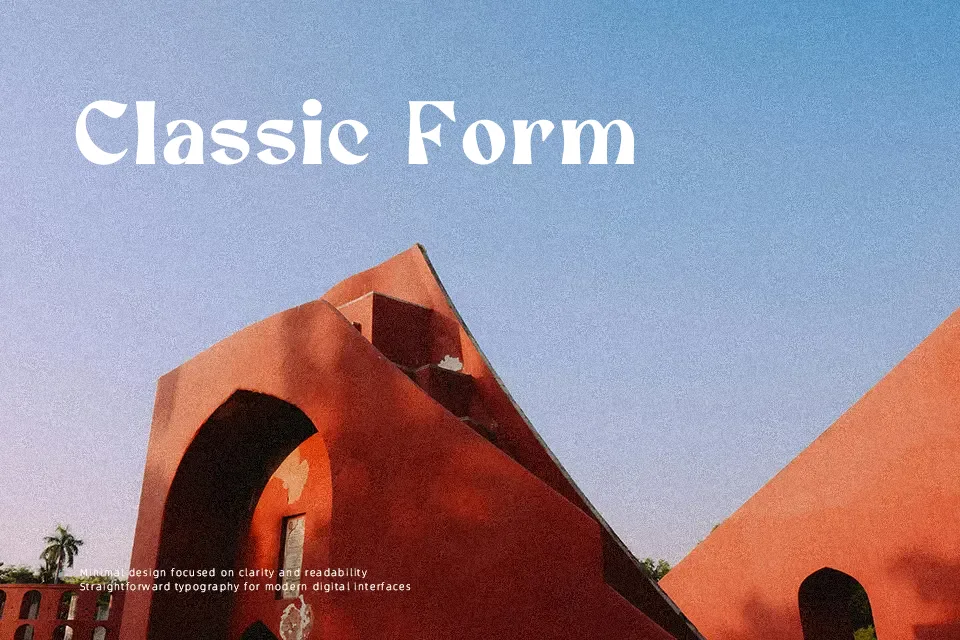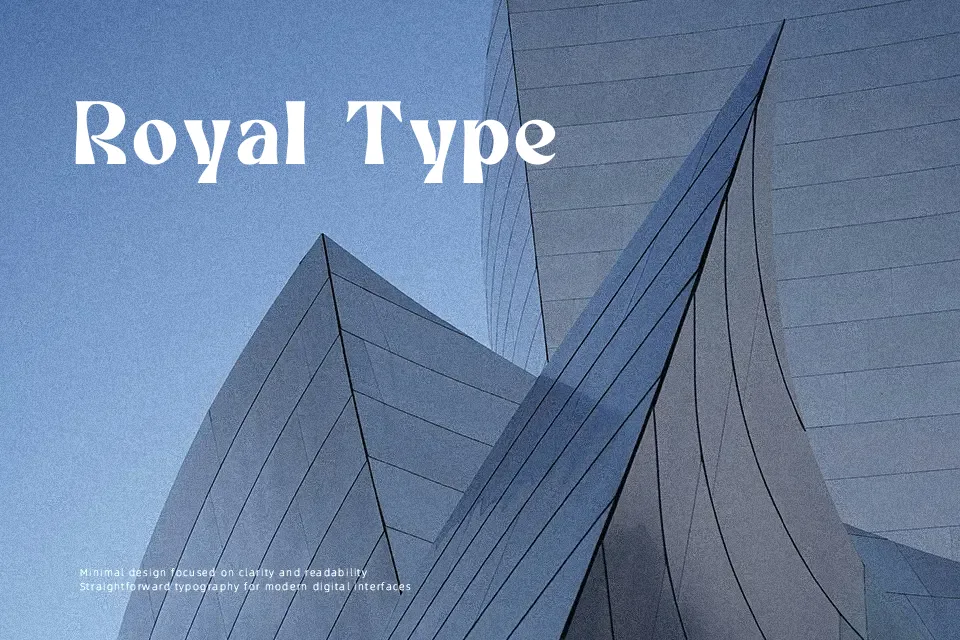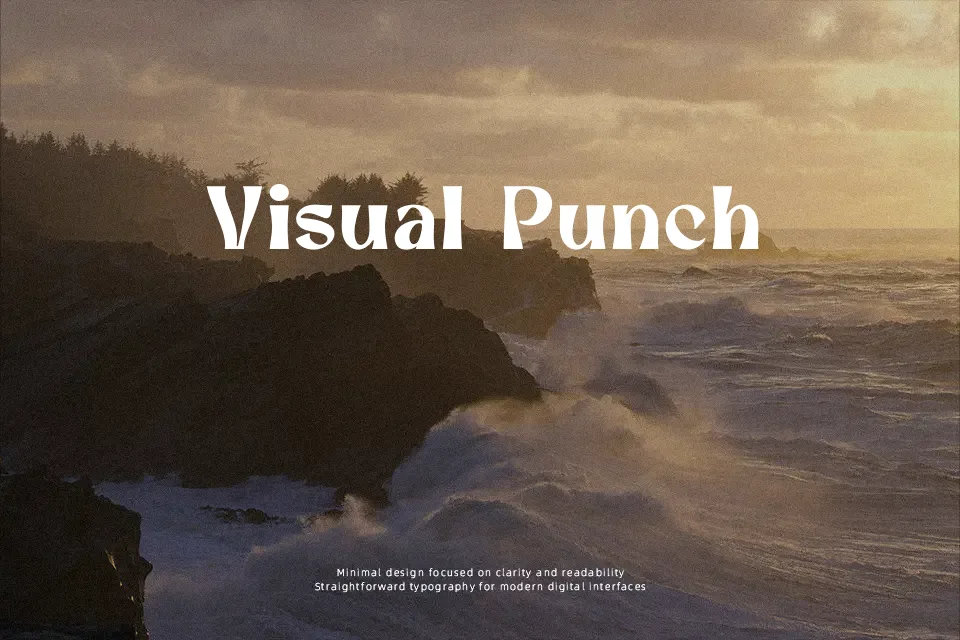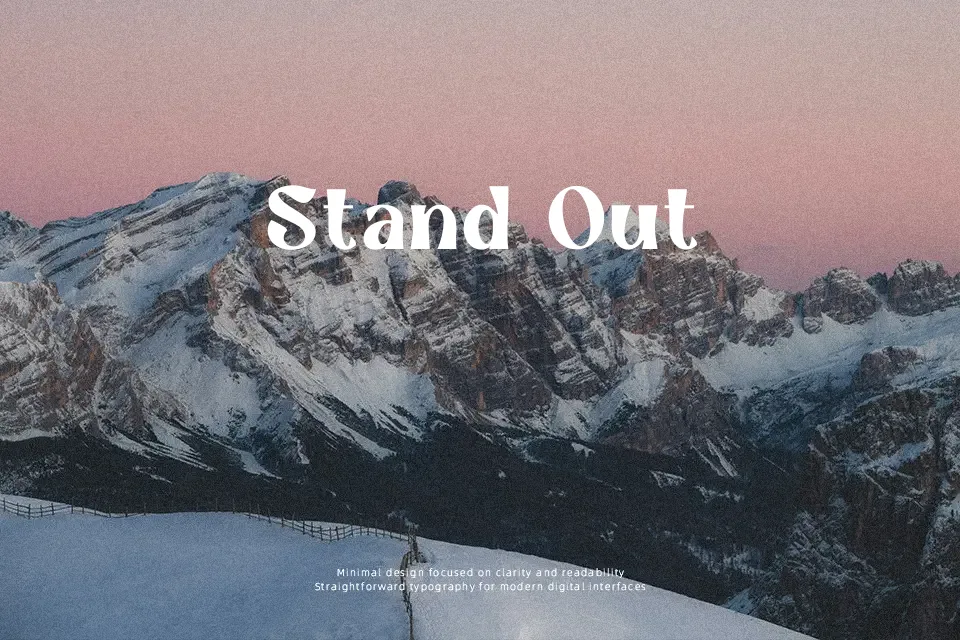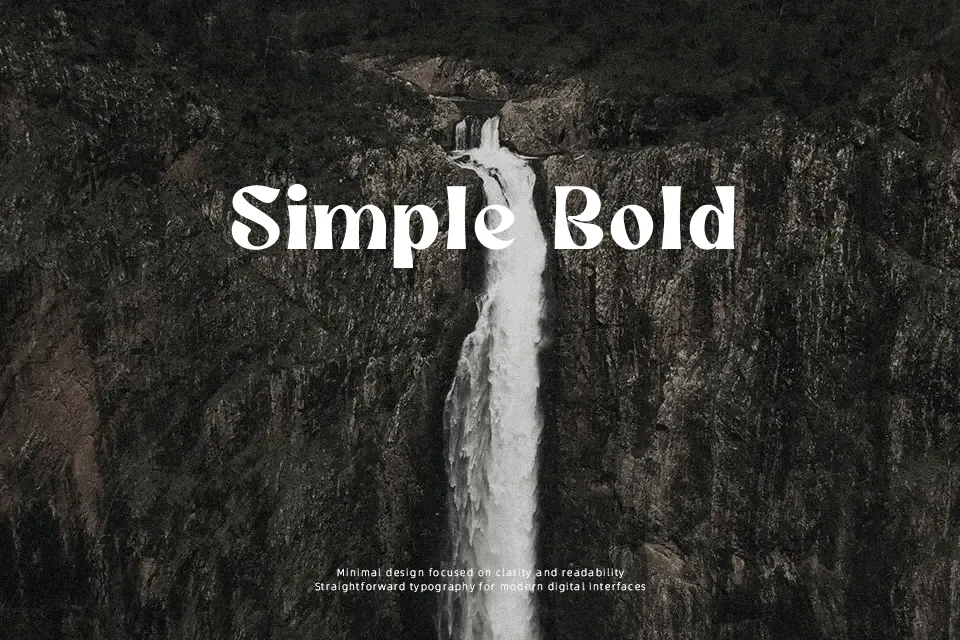
Balmore Font
Balmore is a contemporary display serif with strong vertical contrast, sharp serifs, and compact spacing that creates a striking, high-impact rhythm on the page. Its letterforms lean toward a fashionable, editorial look, making it suited to bold wordmarks, campaign headlines, and statement covers rather than quiet, text-heavy layouts. The font works well when you need a distinctive, stylish title that feels modern and slightly experimental, but it can become tiring and less legible in long paragraphs or small sizes. Designers who already use other modern display serifs may find Balmore comparable in flair, yet a bit more retro-inflected, so it rewards careful use rather than all-purpose deployment.
fashion lookbook covers
branding wordmarks for lifestyle products
poster headlines for events or campaigns
body text or long editorial articles
formal corporate documents and reports
interfaces or apps requiring small-size readability
Perfect for branding, fashion, and headline, with a artistic and display style.